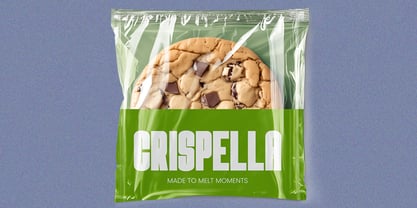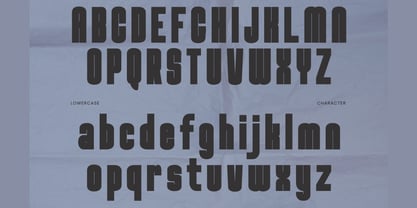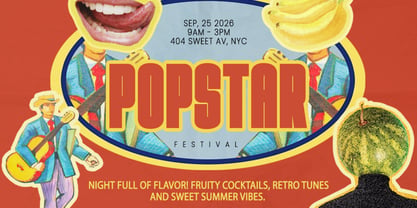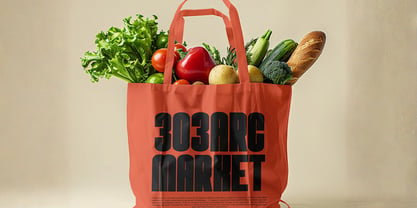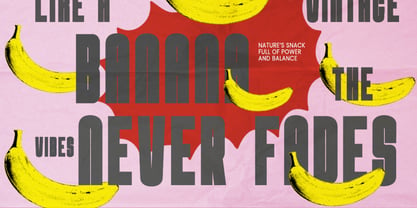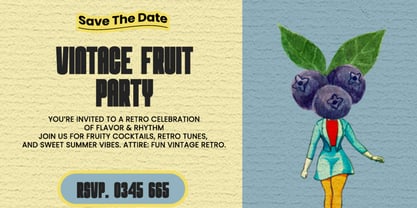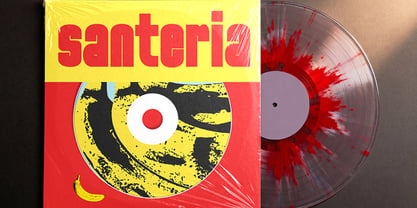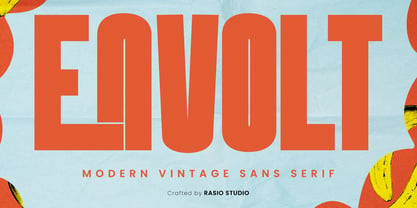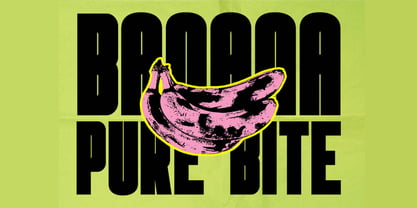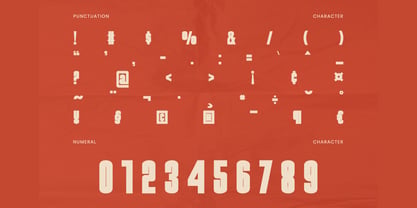
Envolt
by Rasio Studio
The Envolt Font Family was designed by Fajar Indra and published by Rasio Studio. Envolt contains 1 styles. More about this family
Envolt Retro Condensed Display Font showcases a bold, high-impact sans serif with a vintage-inspired condensed structure and strong geometric presence. The letterforms feature thick vertical strokes, tight spacing, and slightly softened edges that create a powerful yet approachable retro aesthetic. Includes uppercase, lowercase, numerals, and punctuation with consistent alignment and clean construction.
Relevance and Use Cases is perfect for retro-themed branding, posters, editorial headlines, event promotions, packaging, and advertising designs that require a bold, condensed, and highly visible typographic presence with a vintage-modern appeal. Suitable for posters, branding systems, editorial layouts, event flyers, packaging design, logo creation, and marketing materials that demand bold, condensed, and retro-inspired typography with strong visual impact.
Designers: Fajar Indra
Current Foundry: Rasio Studio